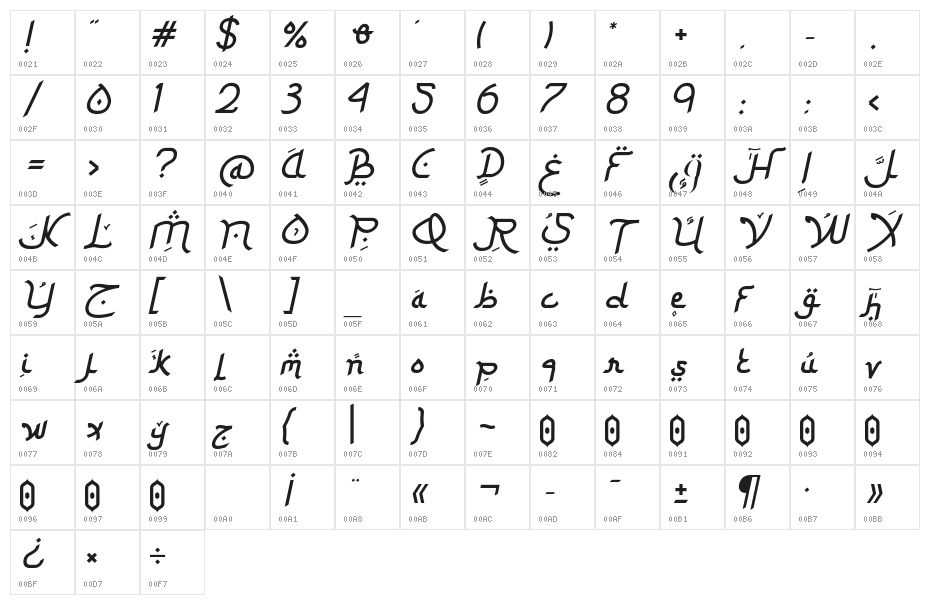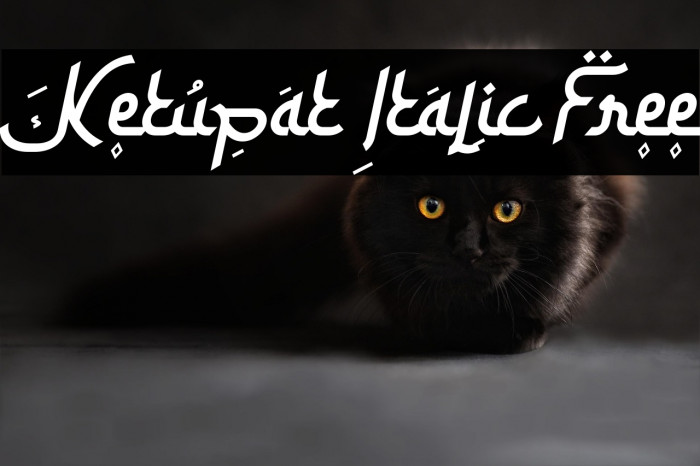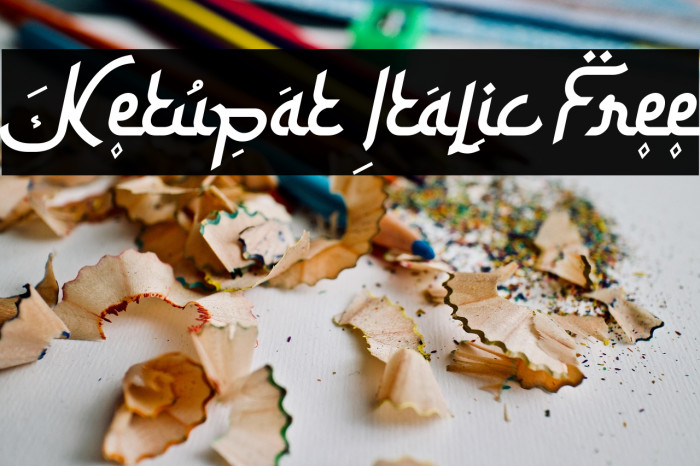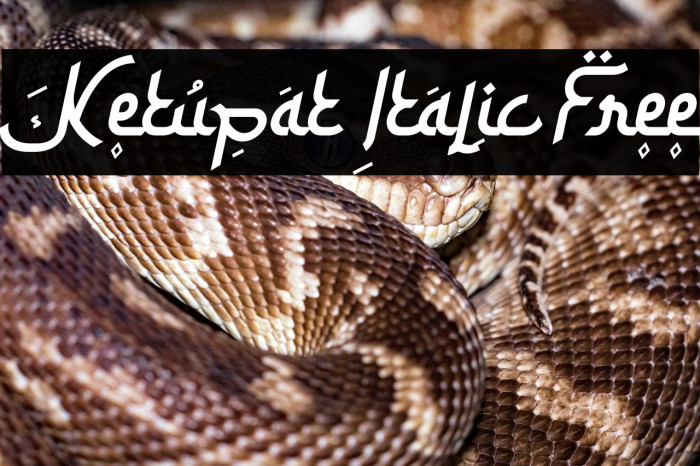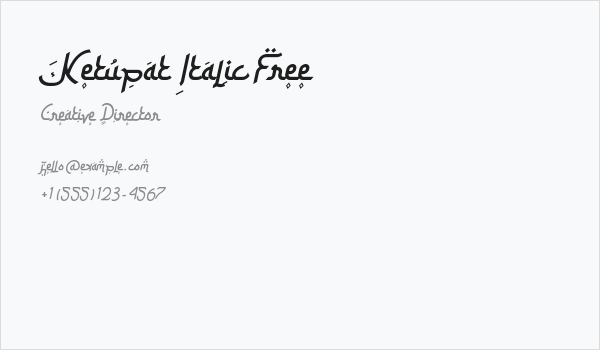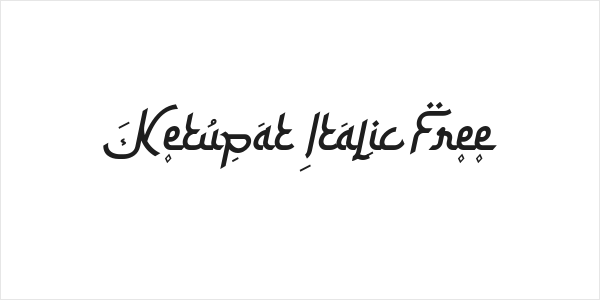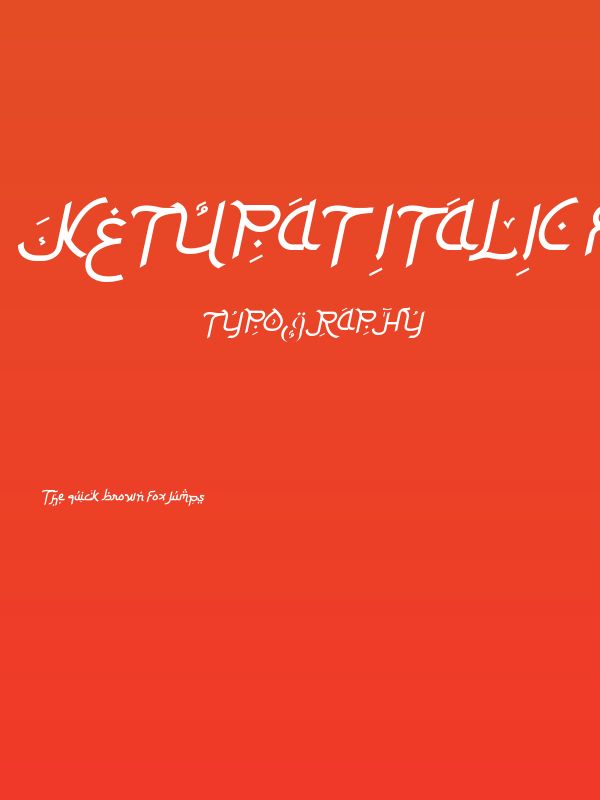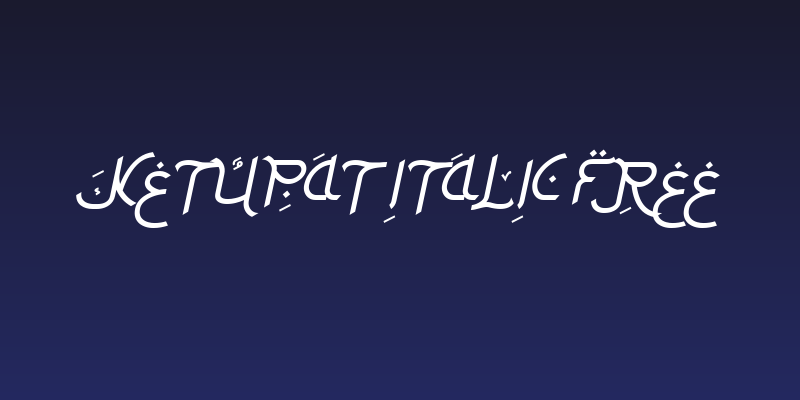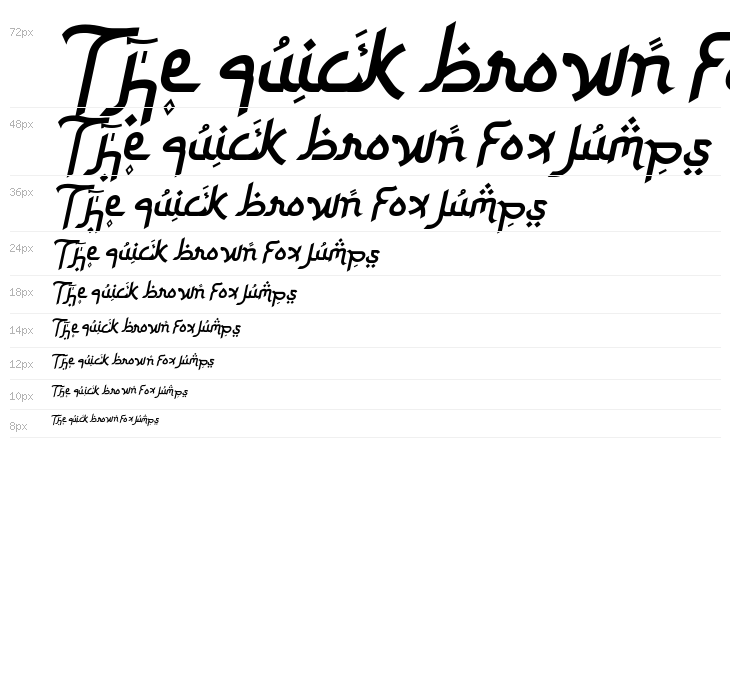
Ketupat Italic Free Font
Ketupat Italic Free Description
This font features a unique and artistic style with a calligraphic flair, characterized by its italicized and flowing letterforms. The uppercase and lowercase letters exhibit a consistent slant, enhancing the dynamic and elegant appearance. The strokes are bold and expressive, with distinctive curves and angles that add a sense of movement. The numerals and special characters maintain the same stylistic elements, ensuring a cohesive look across all glyphs. The font's decorative nature makes it suitable for creative and expressive designs, where a touch of sophistication and flair is desired.
| Use Case | Logos, Headlines, Artistic designs |
| Proposed Projects | Ideal for invitations, greeting cards, branding projects, and artistic posters. |